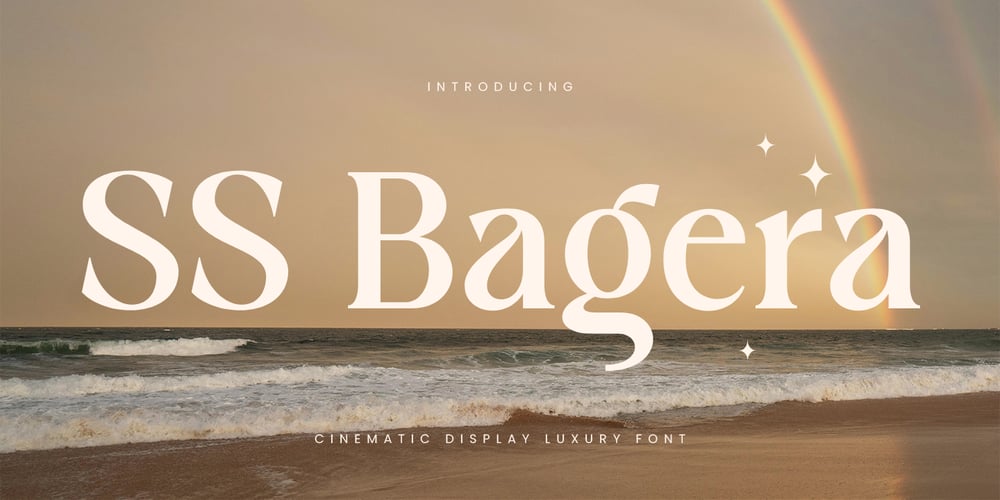
SS Bagera Font Family was designed by Zamroni Hamzah and published by Sensatype Studio. SS Bagera contains 2 styles and family package options. Introducing SS Bagera, a cinematic display font that exudes luxury and sophistication. Perfect for high-end designs and creative projects, SS Bagera combines elegance with a touch of cinematic drama to make your work stand out.The Story Behind SS Bagera:SS Bagera was inspired by the glamour and elegance of classic cinema. Imagine the golden age of Hollywood, where every frame was a work of art and every title a masterpiece. This font captures that timeless sophistication, offering a luxurious and stylish look for your designs. SS Bagera is ideal for designers who want to create an aura of elegance and exclusivity in their work.SS Bagera Font Features: Cinematic Design: Inspired by classic cinema, perfect for creating a dramatic impact. Luxurious Aesthetic: Combines elegance with a high-end look for sophisticated designs. Versatile Usage: Ideal for logos, branding, headlines, posters, and luxury-themed projects. Multiple Formats: Available in 4 formats for all your design needs. High Legibility: Clear and readable, ensuring your message is communicated effectively. Elegant Appeal: Perfect for creating an aura of exclusivity and refinement. Inspirational Previews: Includes sample designs to spark your creativity. Perfect For: Luxury Branding: Create elegant and memorable logos for high-end brands and businesses. Cinematic Projects: Design eye-catching movie posters, title sequences, and promotional materials. High-end Advertising: Develop stylish and sophisticated advertisements and marketing materials. Fashion and Lifestyle: Enhance fashion magazines, lookbooks, and lifestyle publications with a touch of glamour. With SS Bagera, your designs will exude luxury and sophistication. Whether you’re working on cinematic projects, luxury branding, or high-end advertising, SS Bagera provides the perfect blend of elegance and dramatic flair. Elevate your design projects with SS Bagera and bring a touch of cinematic luxury to your work.